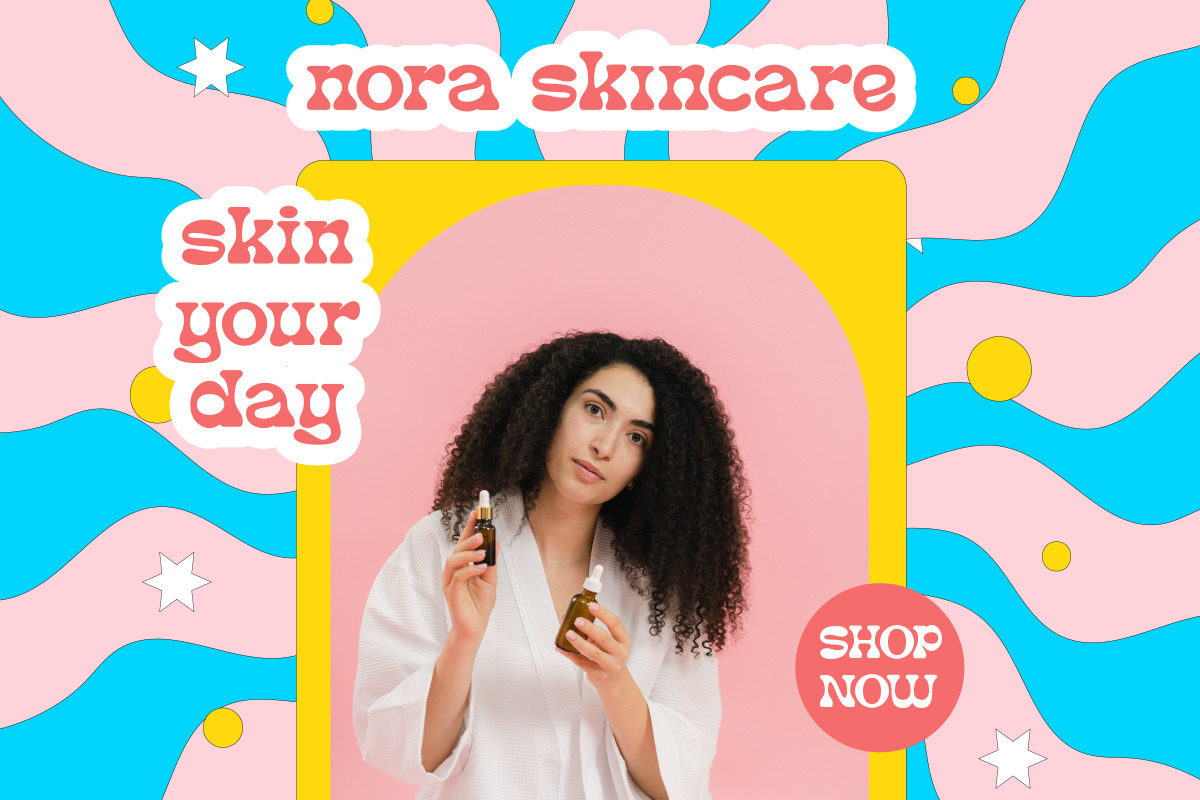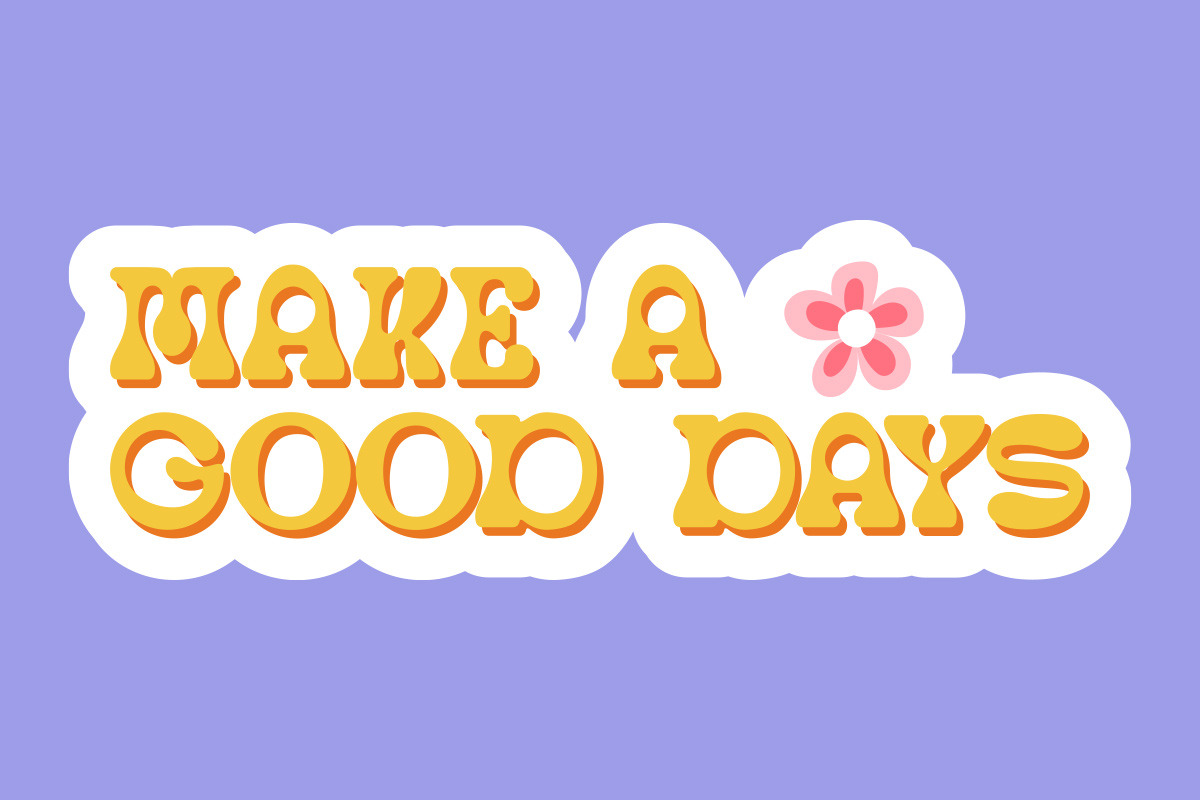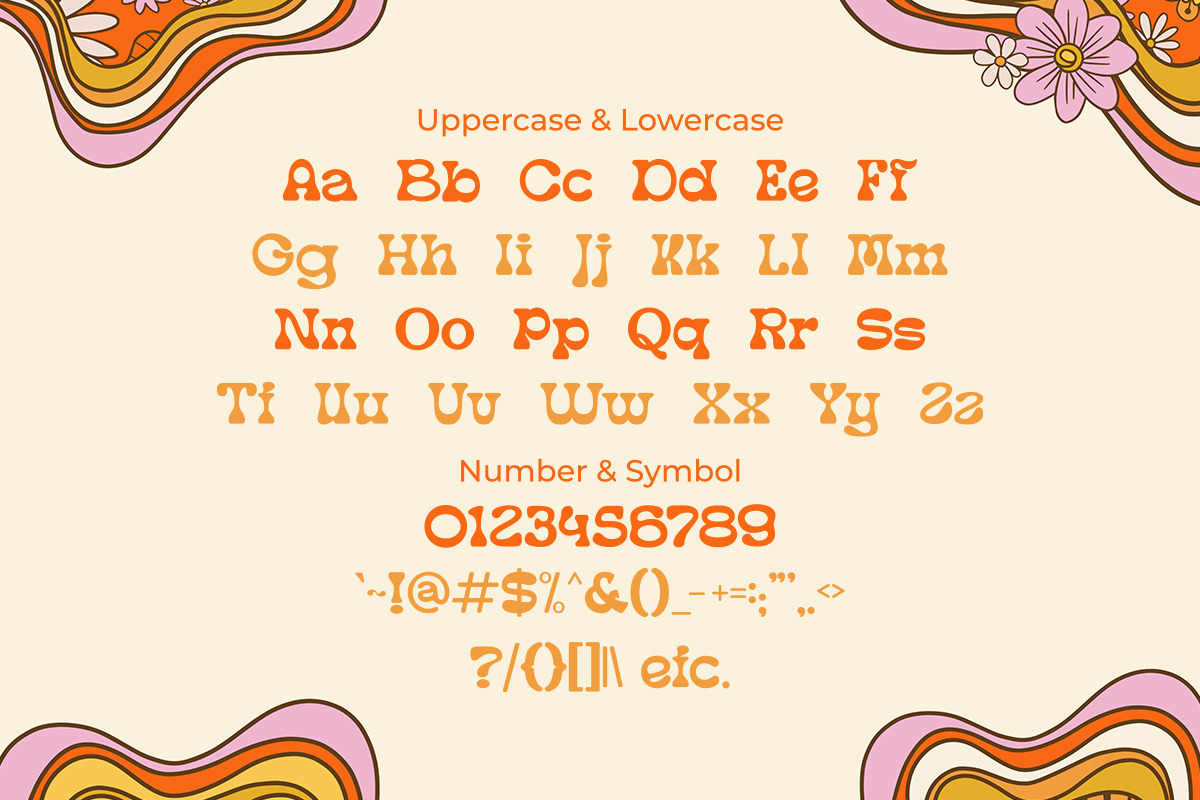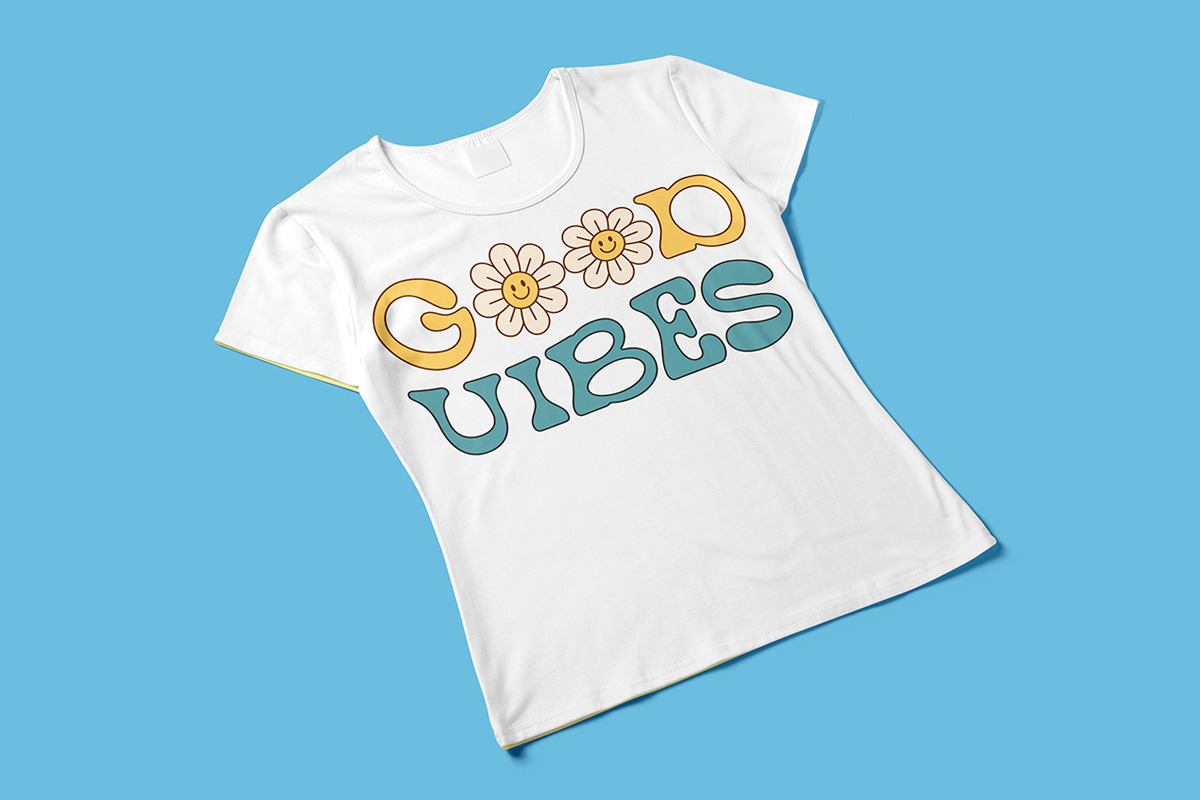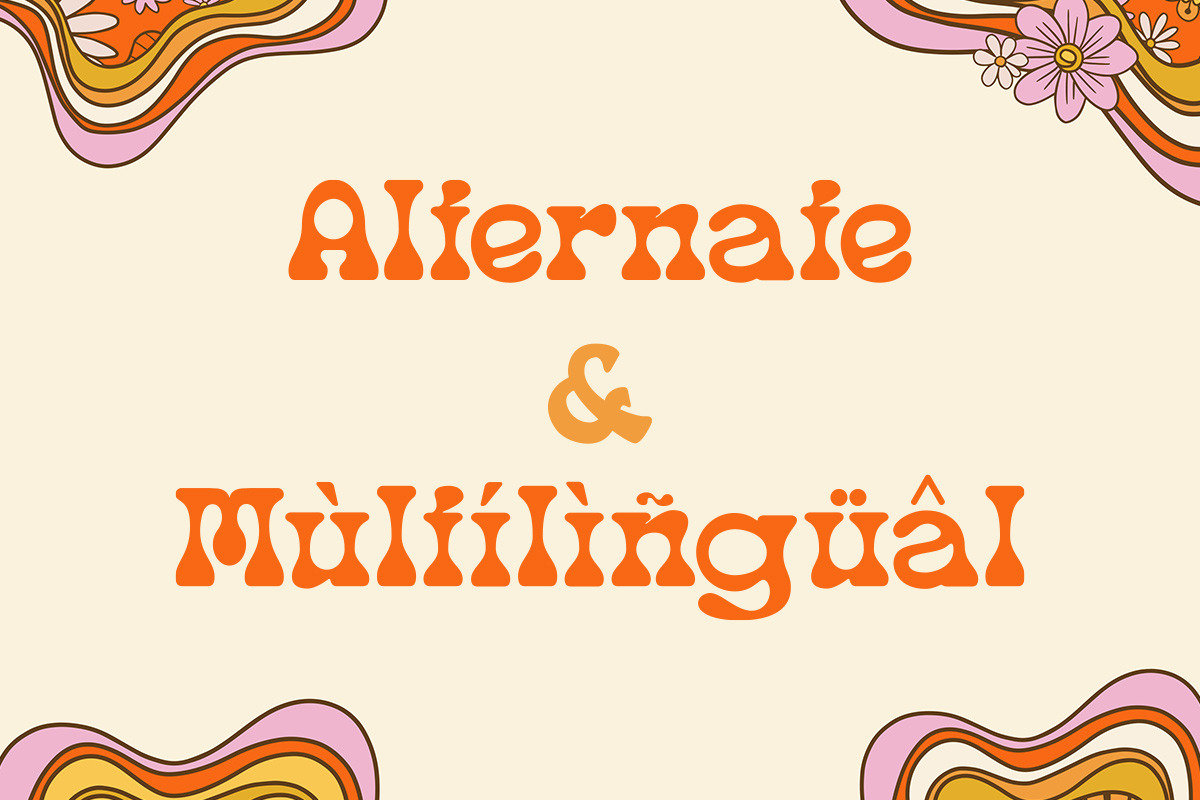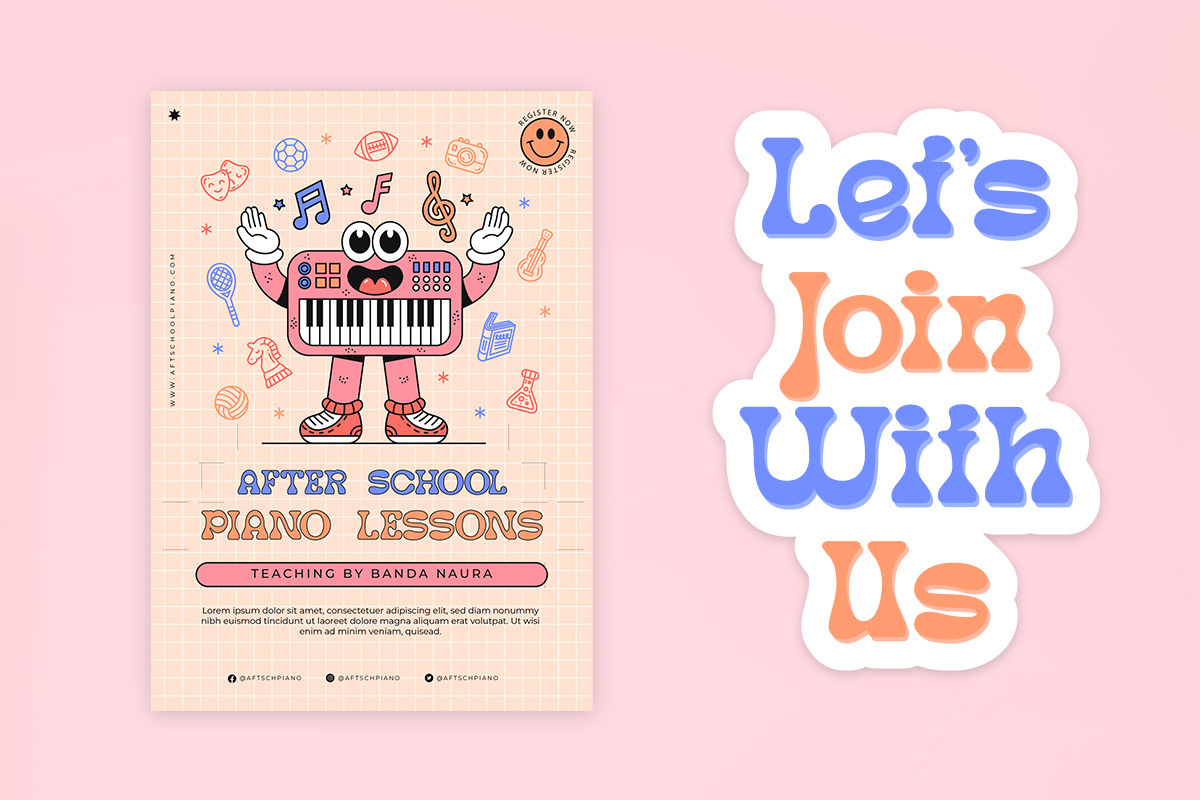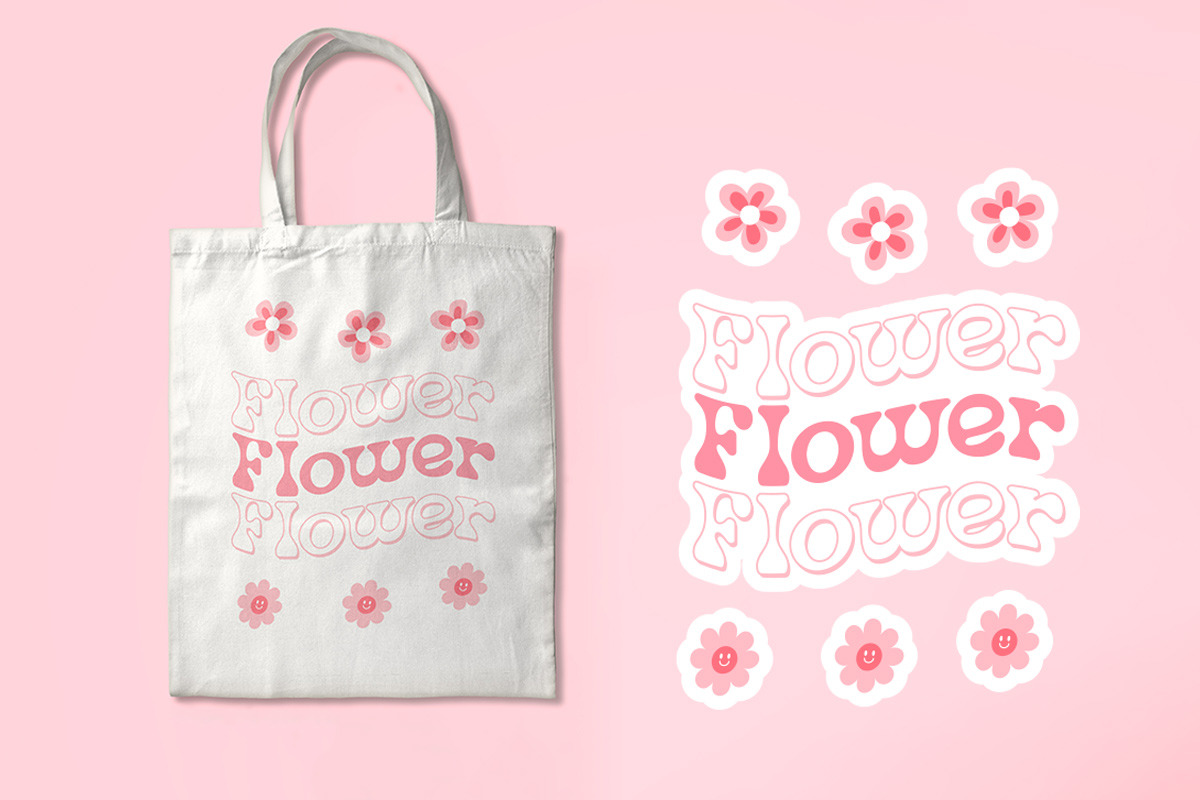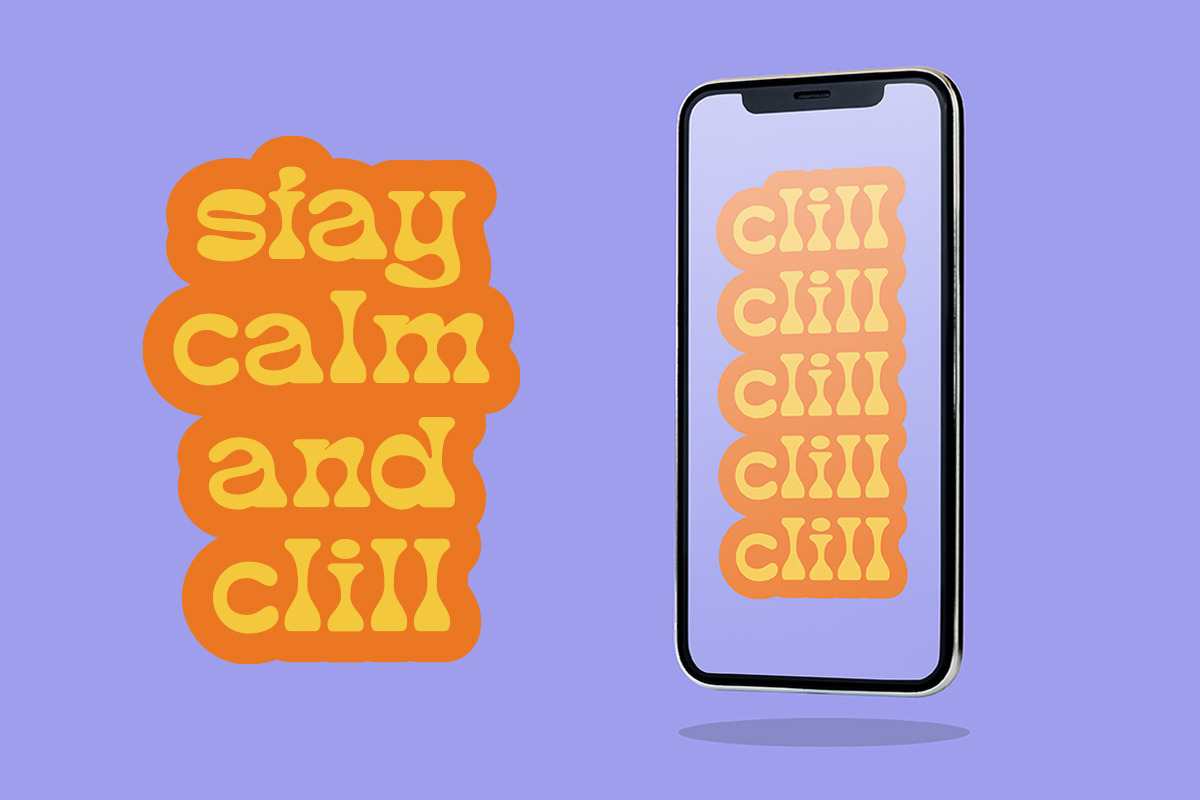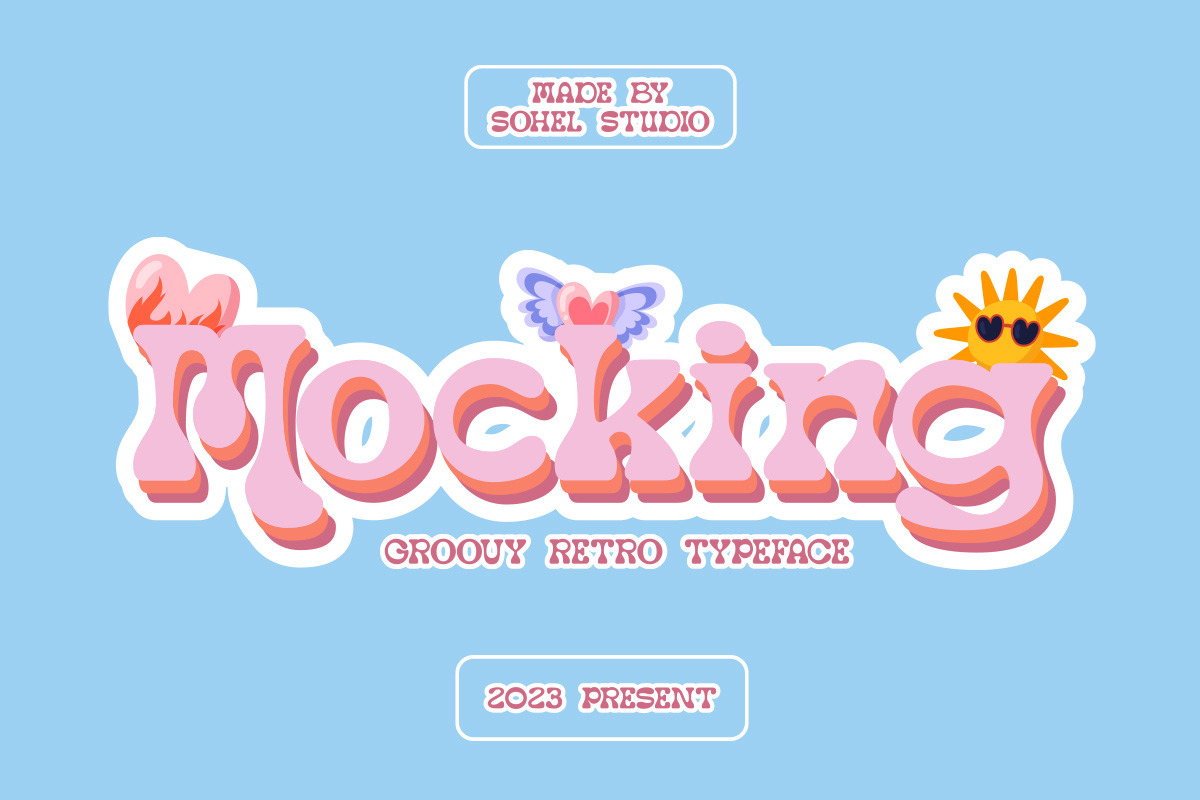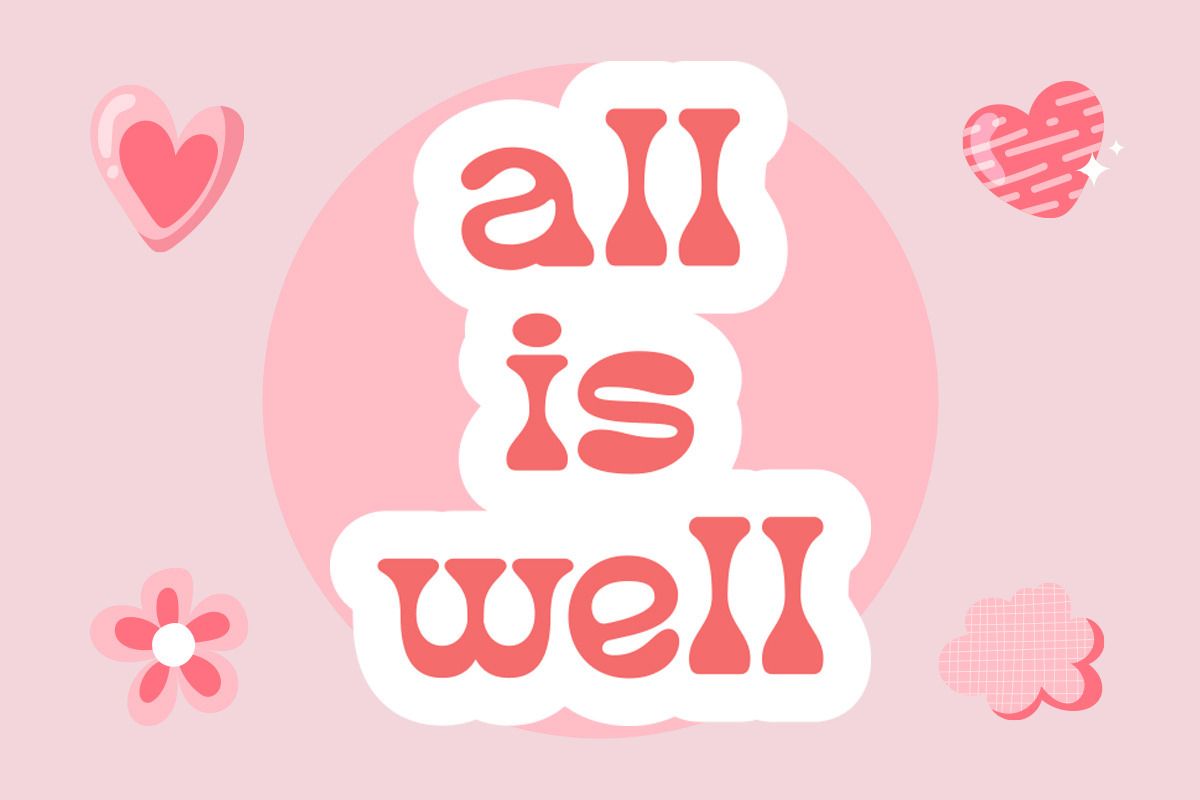
Mocking - Vintage Event Poster Font
Mocking – Retro Groovy Font With A Childish Touch . Font is the perfect choice for projects that need a playful and quirky touch. Inspired by the groovy era of the 1960s and 70s, this font combines a fun and childish style with a hint of nostalgia. It features bouncy curves and playful swashes that will make any design stand out.
With uppercase and lowercase letters, numbers, and punctuation marks, as well as several alternates and international characters, the Groovy Font is a versatile choice for a variety of projects. Whether you're creating posters for a music festival, designing a retro-themed event, or simply adding a touch of whimsy to your designs, the Groovy Font is sure to bring a smile to your audience's face.
Mocking Features: